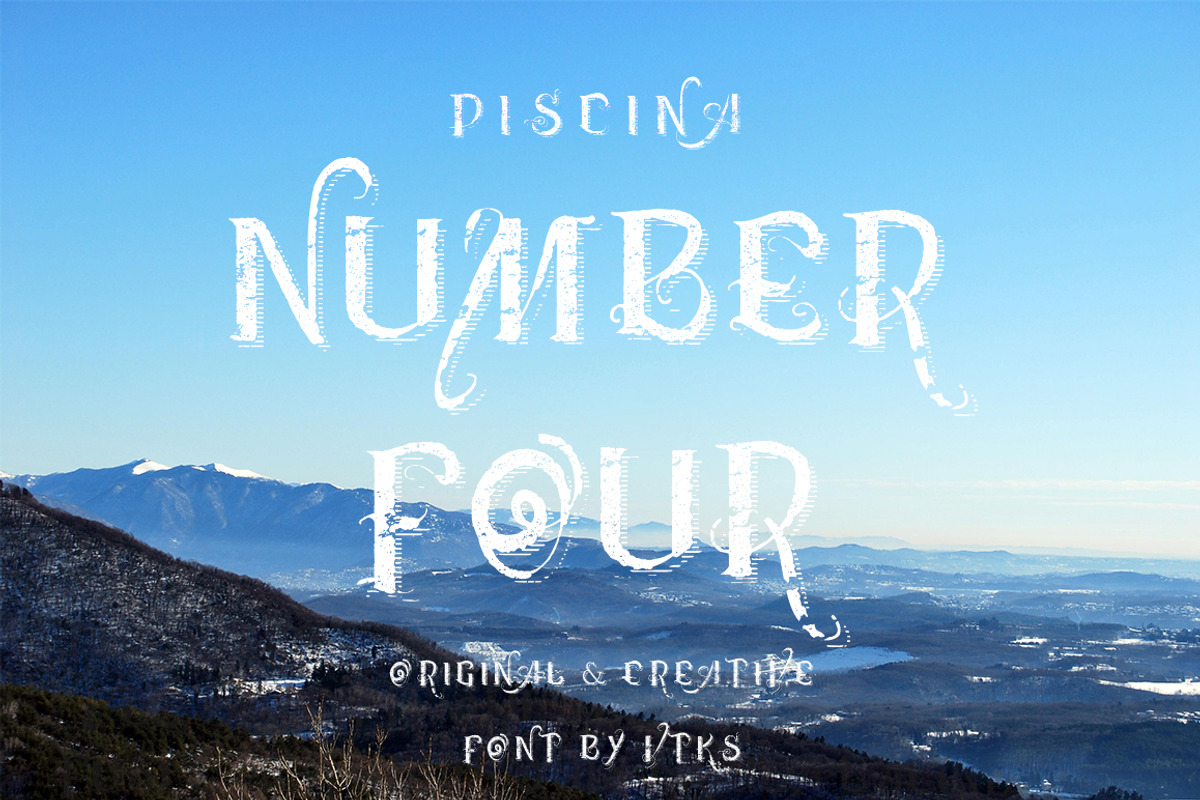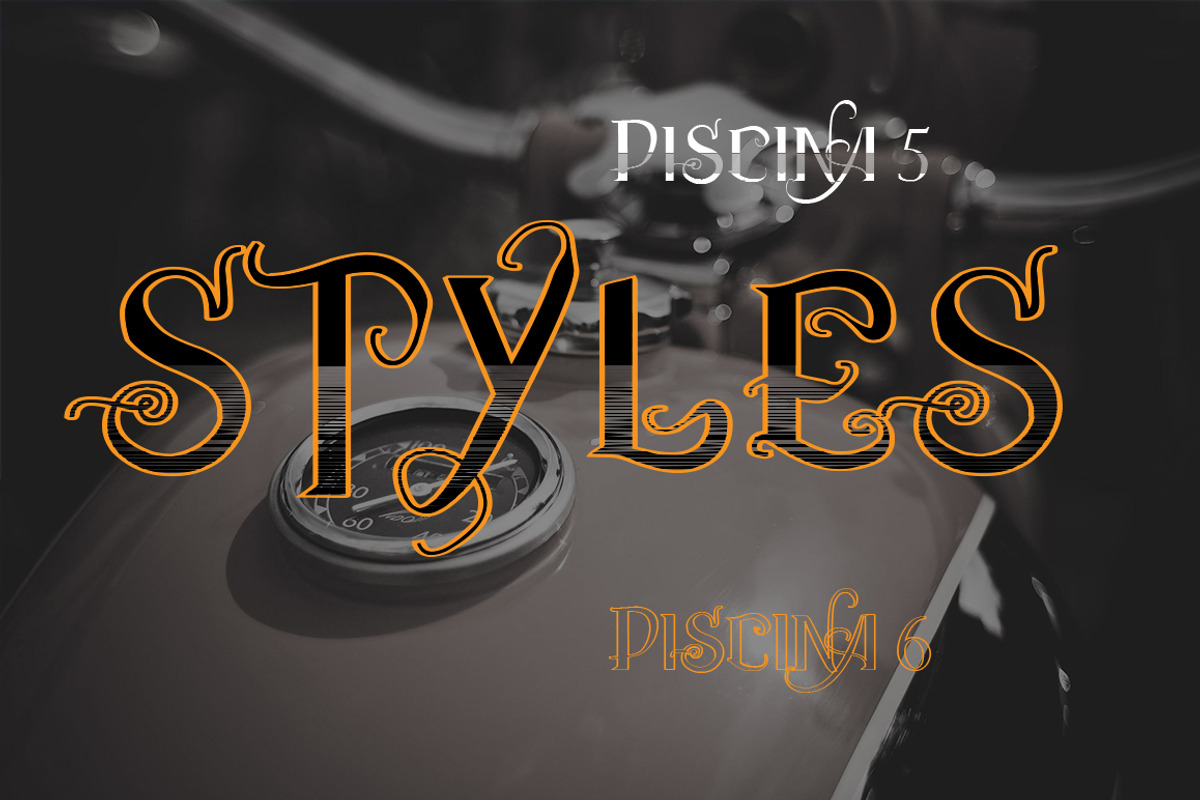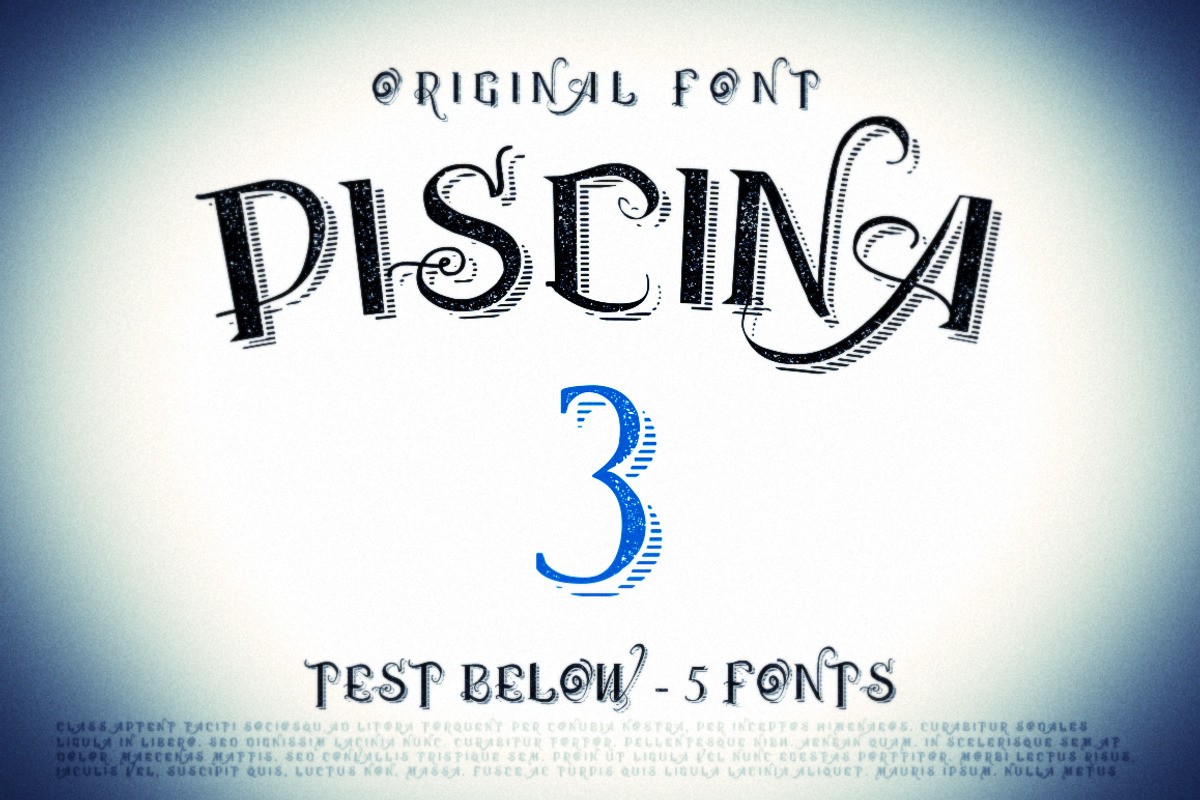
Piscina Vtks fonts ( 5 fonts )
Piscina Vtks fonts ( 5 fonts ) by vtks design is a font selected for branding, posters, packaging, typography.
Why Piscina Vtks fonts ( 5 fonts ) is worth a look
Piscina Vtks fonts ( 5 fonts ) by vtks design fits naturally into Branding, posters, packaging, typography.